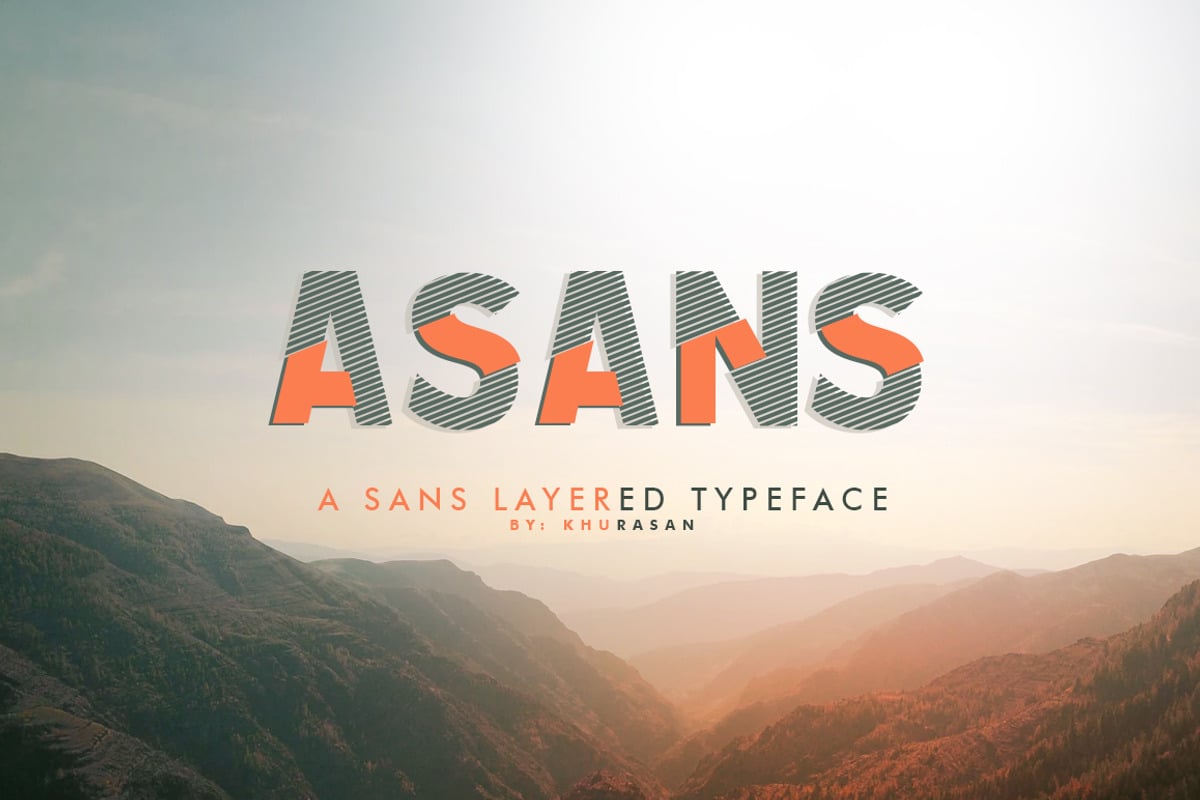
Asans Layered Font
Create stunning layered typography effects with this bold display typeface featuring three versatile styles. Asans Font delivers powerful visual impact through its layered design system, offering regular, front and base variations that work together seamlessly. This bold display typeface brings awesome character to any creative project while supporting multilingual applications through its comprehensive character set. Perfect for creating eye-catching designs across multiple applications: Busine...